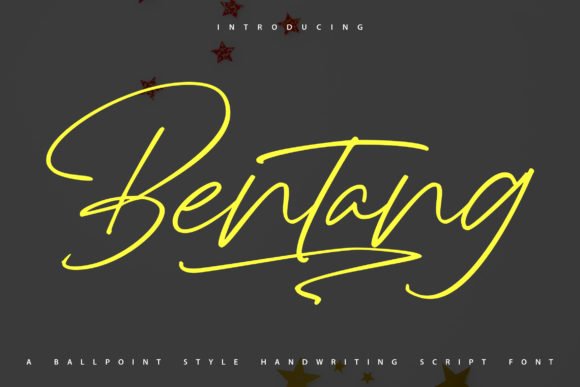
A Delightful Handwritten Companion: Discovering the Bentang Font
As a designer, there’s nothing quite like the rush of creativity that comes from stumbling upon the perfect font. It’s that moment when the words flow effortlessly, and your design comes alive. You’ve experienced it before – the thrill of combining colors, shapes, and typography to create something truly unique.
One such gem is the Bentang Font, a charming handwritten font that’s sure to elevate your creative endeavors. With its flexibility and PUA encoding, you’ll have access to an array of glyphs and swashes that will take your designs to the next level. Whether you’re crafting a wedding invitation, a children’s book, or a social media campaign, the Bentang Font is an incredibly valuable asset to your font library.
Bentang Font Key Features
- Unique Characteristics: Bentang Font features a unique blend of modern and traditional design elements, including geometric shapes and organic curves, creating a distinctive and eye-catching visual identity.
Bentang Font Review
Bentang Font is an interesting addition to the world of typography. Here’s my honest take on it:
- Unique and modern design: Bentang Font has a distinctive look that sets it apart from other fonts. Its asymmetrical lines and curves make it perfect for adding a touch of sophistication to any design.
- High legibility: Despite its unconventional design, Bentang Font is surprisingly easy to read, making it suitable for a wide range of applications, from body text to headlines.
- Good font weight variety: Bentang Font comes in a range of weights, from light to bold, giving designers plenty of options for creating visually appealing typography.
- Limited language support: Bentang Font is not designed for languages that require complex diacritics or other special characters, which may limit its usability in certain contexts.
- Not suitable for small text: Due to its intricate design, Bentang Font may not be the best choice for small text sizes, where its complexity can become overwhelming.
Bentang Font is a solid choice for designers looking to add some visual interest to their work. While it may have some limitations, its unique design and high legibility make it a worthwhile addition to any font collection.
Getting the Most Out of Bentang Font
For optimal results, use Bentang Font in conjunction with a bold and contrasting color scheme.
Experiment with different font sizes and styles to achieve the desired effect.
Bentang Font is ideal for:
Headlines and titles
Brand logos and identities
Editorial and publishing designs
Any design where a unique and eye-catching font is desired
Alternatives to Bentang Font
Playfair Display is a luxurious and elegant serif font, perfect for titles and headings in high-end branding, magazines, and advertising. It has a classic look with intricate details and is ideal for projects that require sophistication and refinement.
Comparison to Bentang Font: While Bentang Font is also a luxurious font, Playfair Display is more ornate and detailed. It’s suitable for projects that require a touch of elegance and sophistication, whereas Bentang Font is more versatile and can be used in a variety of contexts.
Anton is a modern sans-serif font with a elegant and refined feel. It’s suitable for titles, headings, and body text in projects that require a touch of sophistication and style. Anton is perfect for fashion, luxury brands, and high-end advertising.
What is the recommended font size and line height for optimal readability with Bentang Font?
For optimal readability, we recommend using a font size between 12 and 14 points, and a line height of at least 1.5 times the font size. This will ensure that the text is clear and easy to read, especially in digital applications.